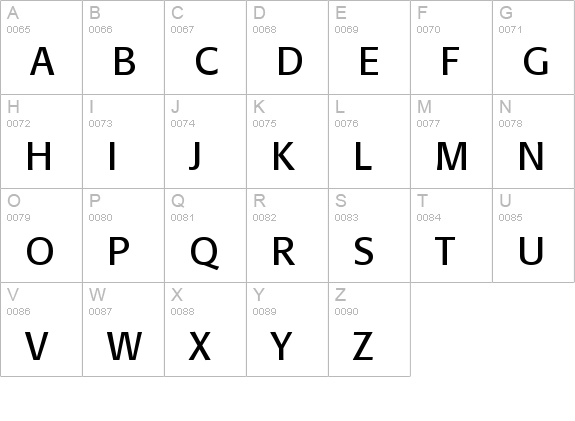
Formata Regular is the standard, neutral variant in the Formata typeface family \xE2\x80\x94 well suited to general body text, paragraphs, and standard typographic work.
Formata Regular is a versatile and elegant typeface that exudes a sense of modern sophistication. With its clean lines and balanced proportions, this font is perfect for a wide range of design projects, from branding to editorial design. The classic yet contemporary look of Formata Regular makes it a timeless choice for any designer looking to make a statement. And the best part? Formata Regular is available for free download at FontsMarket.com. So you can add this beautiful font to your collection without breaking the bank. Don't miss out on the opportunity to enhance your designs with the timeless appeal of Formata Regular.